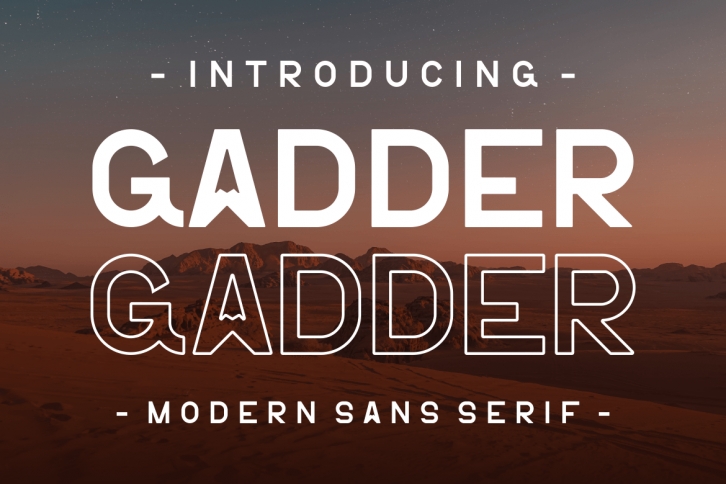
Gadder is a bold and authentic sans serif font suitable for any branding project like logo, t-shirt printing, product packaging, and many more. It will look outstanding in a wide range of contexts.